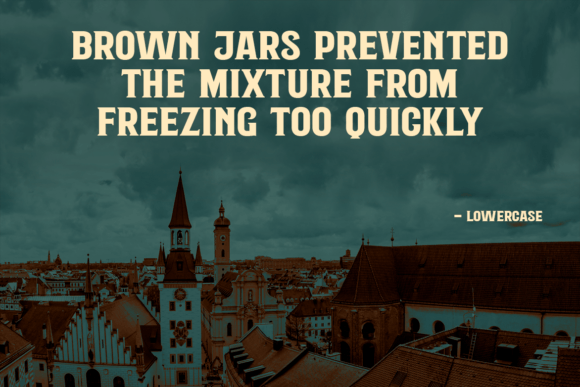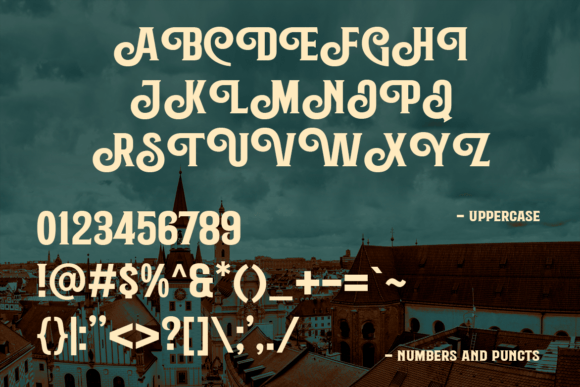
Introduction to Clovet Font
Instantly get back to the past with Clovet, a bold and vintage serif font.
A strong yet ornamental drop caps font for your classic visual needs Perfectly fit for your signage design, sign painting concept, book cover, title, logo, branding, decorative ornamental design, and many more.
Key Features of Clovet Font
Why Choose Clovet Font?
Clovet Font offers exceptional quality and versatility, making it a valuable addition to your design toolkit. Whether you’re creating for personal projects or commercial use, Clovet Font delivers professional results.